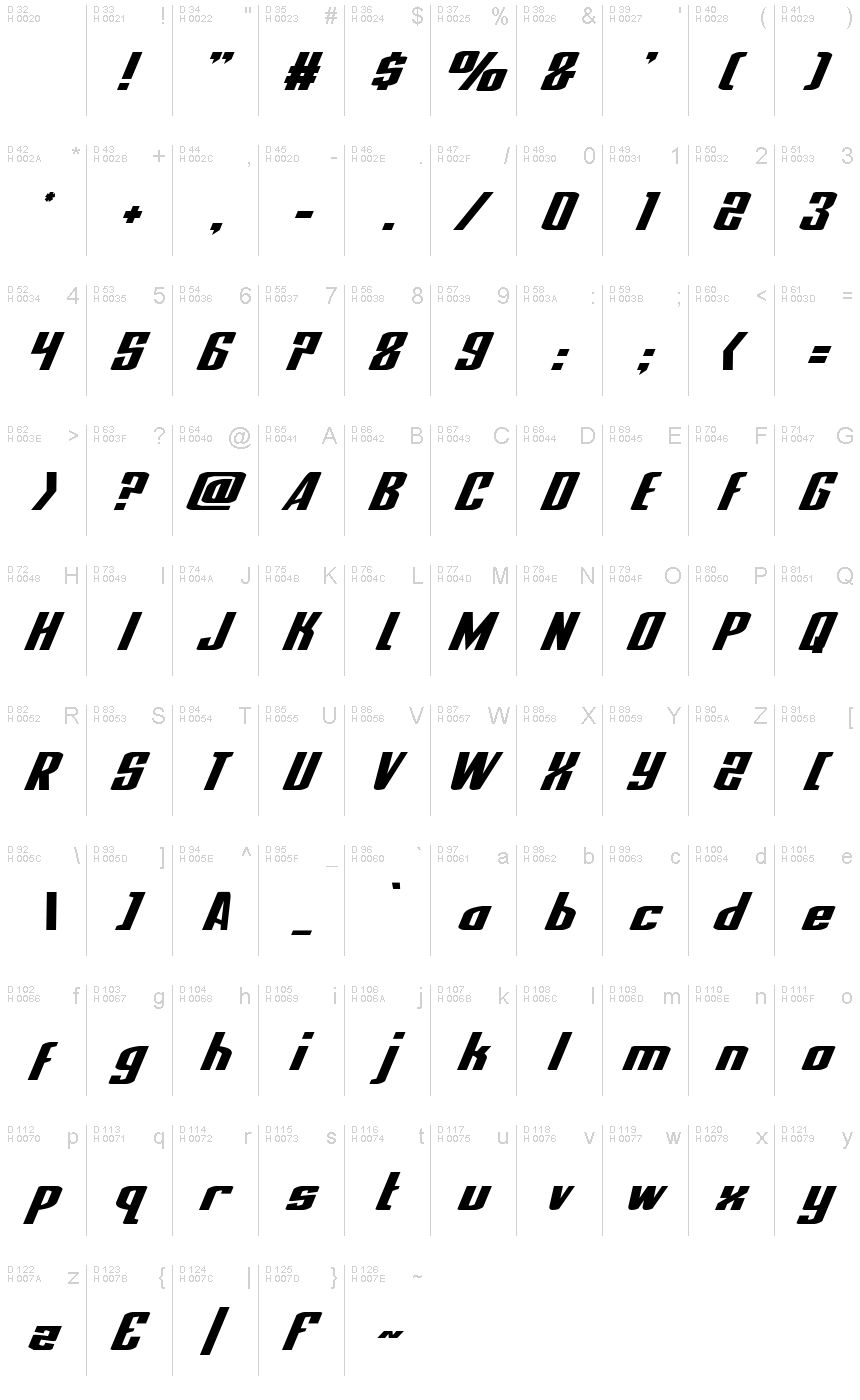
National Express Italic
National Express Italic is a bold, eye-catching display font that exudes a distinct techno-infused aesthetic. Designed by Daniel Zadorozny, this font's striking letterforms and angular, geometric style create a sense of futuristic sophistication. The italic slant lends a dynamic, forward-moving energy, making it an excellent choice for branding, headlines, and other design elements that require a strong, impactful visual presence.
With its clean lines, sharp edges, and seamless flow between characters, National Express Italic is well-suited for a variety of applications, from digital interfaces and product packaging to signage and event materials. Its versatility and modern flair make it a compelling option for designers seeking to convey a sense of technological innovation, urban cool, or cutting-edge sensibility.